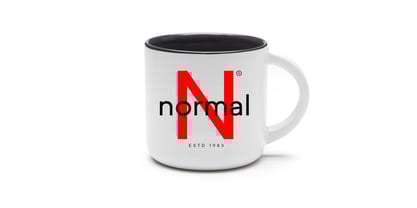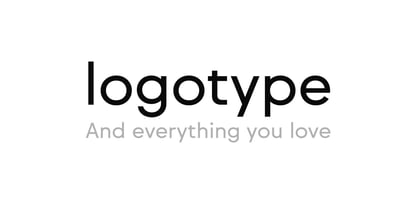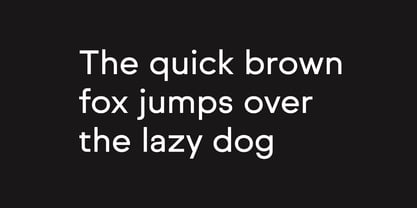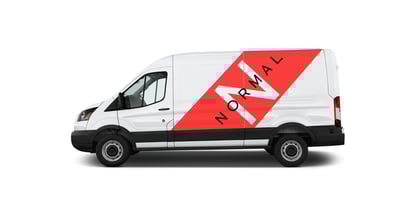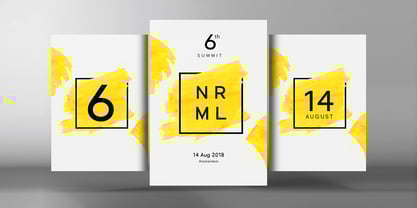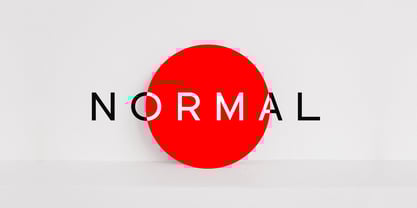
Normal
by Designova
The Normal Font Family was designed by Jean Johnson and published by Designova. Normal contains 12 styles and family package options.
NORMAL - A pure & minimal typeface with the special charm of a perfect Sans-Serif font. Just one look and you will notice the unique flair of this typeface which will make it perfect for logotypes, headlines, branding materials, corporate identities, and web & print purposes without any limits.
Typeface now comes with extended language support including Western European and Central European sets. A total of 336 glyphs are included.
Normal